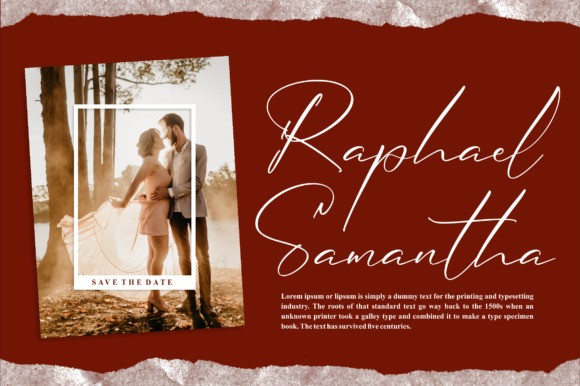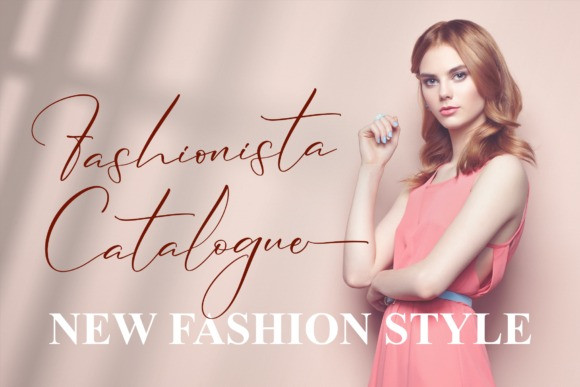
Dignitale Font
Dignitale is an exquisite handwritten font, masterfully designed to become a true favorite. It maintains its classy calligraphic influences while feeling contemporary and fresh. This font is PUA encoded which means you can access all of the glyphs and swashes with ease!